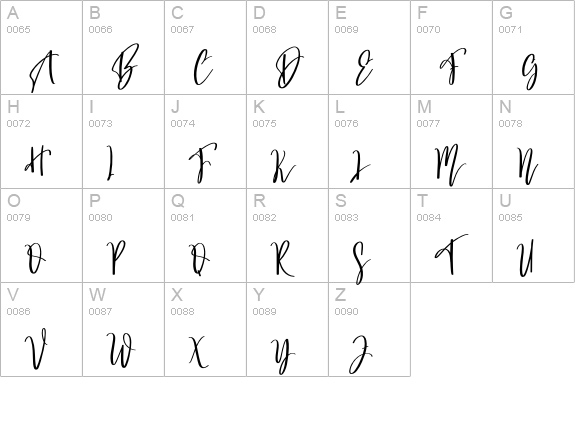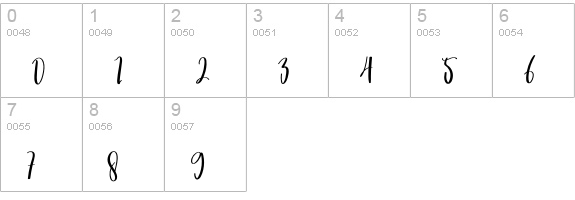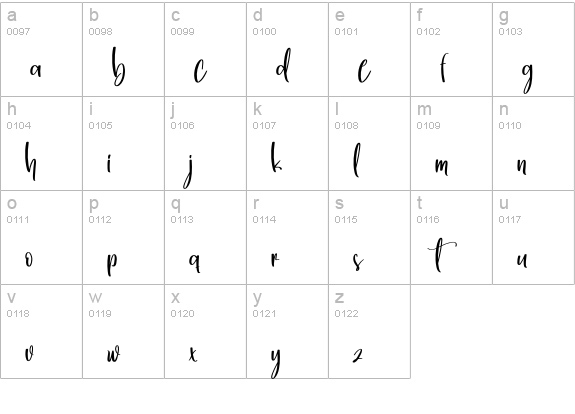
The Gnome font is a charming and whimsical typeface that exudes a playful and friendly vibe. With its rounded edges and quirky details, this font is perfect for adding a touch of personality to your designs. Whether you're working on a children's book, a greeting card, or a poster, Gnome font will bring a sense of fun and creativity to your project.